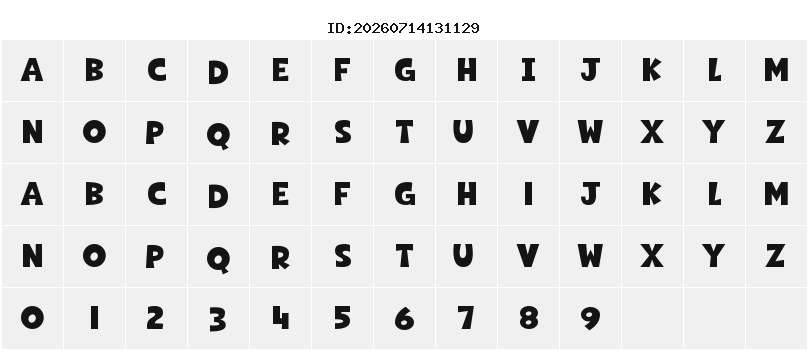
Hargroty Preview
• Font Name: Hargroty
• Full Font Name: Hargroty
• Version: Version 1.00 December 12, 2016, initial release
• Copyright: Copyright Dan P. Lyons 2016
• Designer: Dan P. Lyons (D-Lyons Design)
About Hargroty.ttf
Hargroty.ttf is a modern, elegant sans-serif font designed for ultimate readability and visual harmony. Perfect for branding, headlines, web design, and print materials.